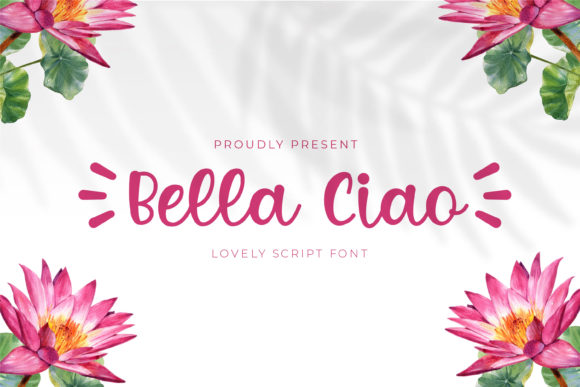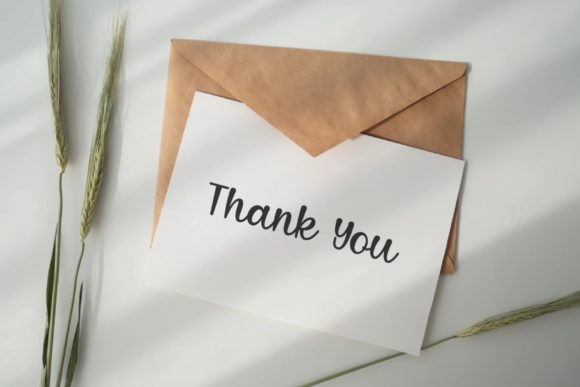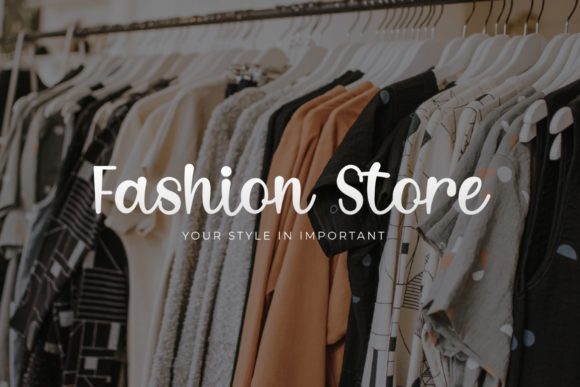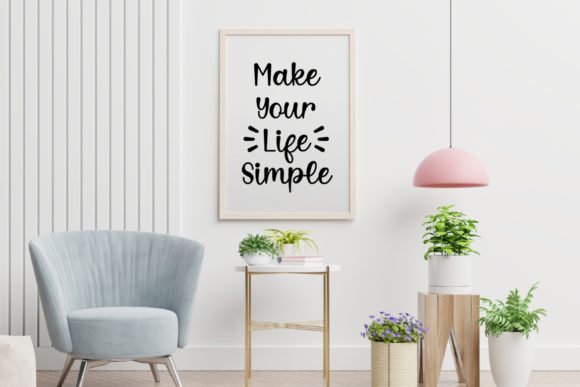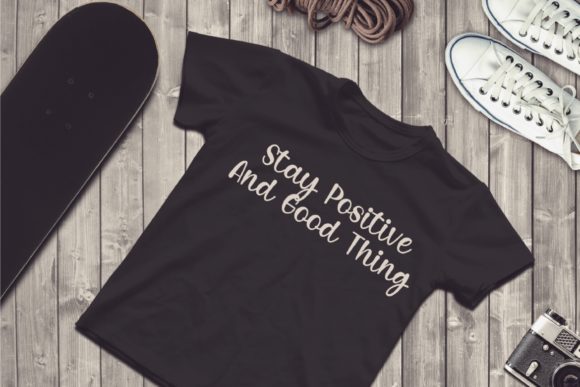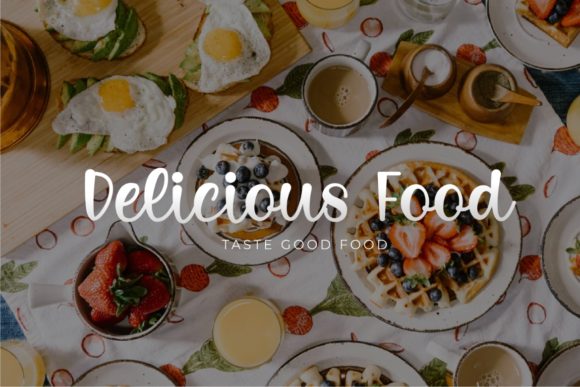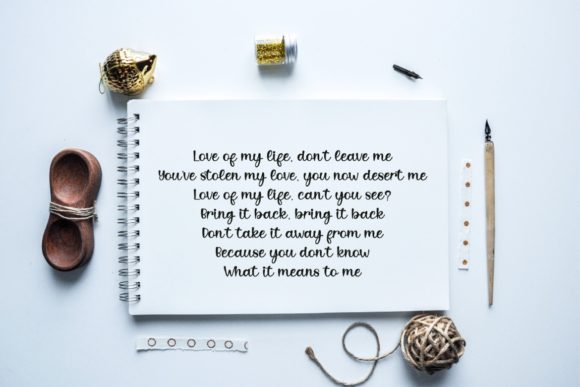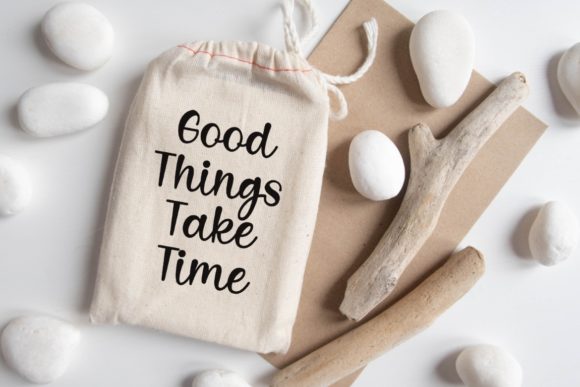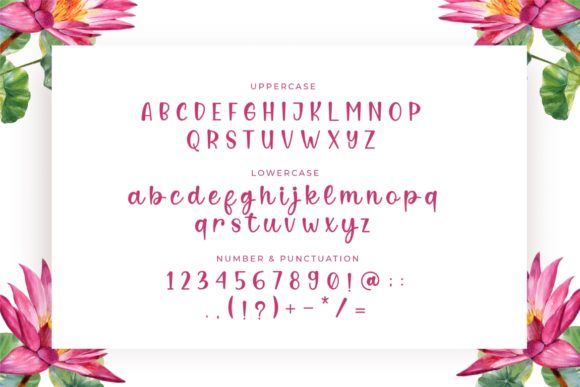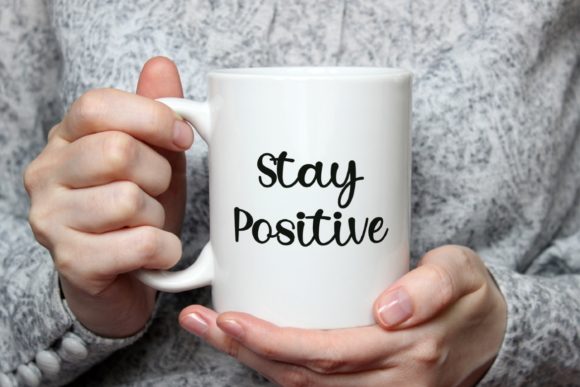
Bella Ciao Font
About Bella Ciao Font
Bella Ciao is a sweet and joyful handwritten font. Add this neat and cute font to each of your crafting designs, and notice how it levels them up!